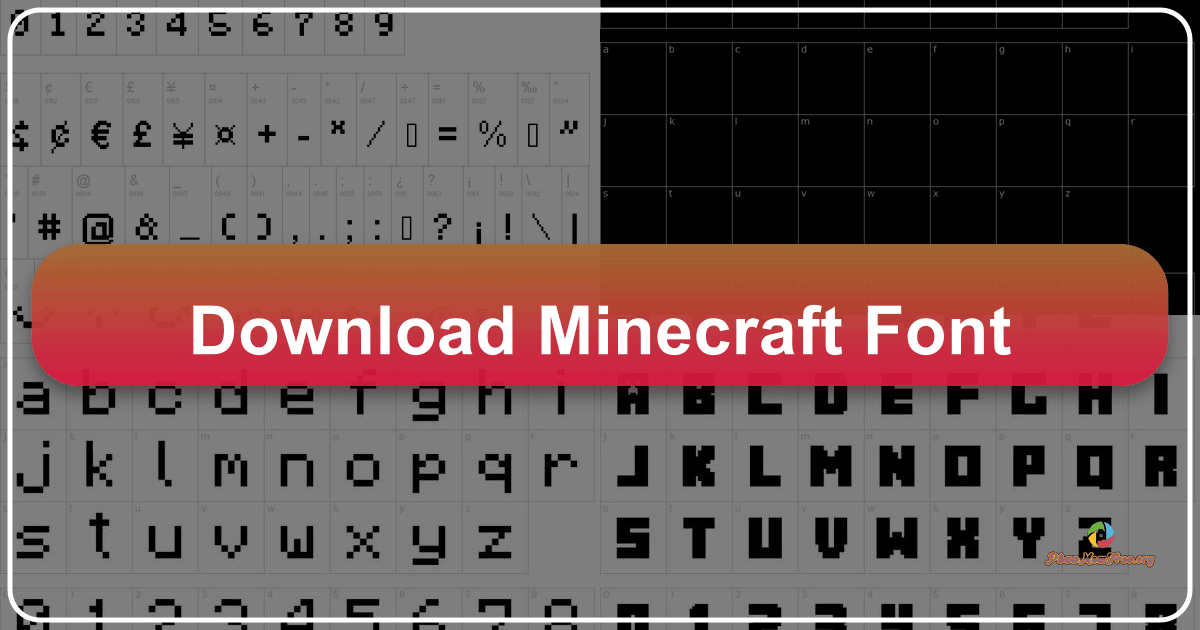
The iconic blocky aesthetic of Minecraft has captivated millions worldwide. Beyond the game itself, the distinctive pixel art style has permeated various aspects of popular culture, inspiring fan art, merchandise, and even custom fonts. The Minecraft Font, a freely available typeface, allows users to inject this beloved visual language into their digital creations, providing a unique way to personalize documents, images, and videos. This detailed exploration dives into the features, functionality, limitations, and overall user experience of the Minecraft Font, clarifying its strengths and weaknesses for both casual and serious users.
Understanding the Minecraft Font’s Appeal
The Minecraft Font’s primary appeal lies in its faithful recreation of the in-game text style. This instantly recognizable font perfectly captures the essence of the Minecraft experience, offering a nostalgic and visually engaging alternative to standard typefaces. The simple, geometric shapes of the characters are instantly identifiable as Minecraft, adding a distinctive charm to any project incorporating the font. This nostalgic element fosters a sense of connection with the game’s vast community and allows users to express their fandom in a tangible way.
For those creatively inclined, the font opens up a world of design possibilities. Instead of painstakingly recreating the Minecraft aesthetic in image editing software, users can effortlessly incorporate the font into their projects, significantly reducing the time and effort involved in creating Minecraft-themed designs. Whether it’s adding captions to videos, crafting unique logos, or simply styling documents, the Minecraft Font simplifies the process of infusing projects with the game’s signature style.
Furthermore, the font’s distinctive style might not be suitable for all applications. Its blocky nature can make it challenging to read in smaller sizes or for extended periods, potentially impacting readability in documents requiring detailed information or lengthy text passages. The design prioritizes visual appeal over optimal readability, making it more suitable for short text snippets, titles, or stylistic elements rather than extended blocks of writing. Therefore, careful consideration of the intended use case is crucial for maximizing the font’s effectiveness.
Technical Specifications and Limitations
The font’s primary limitation stems from its design aesthetic. The pixelated nature, while visually appealing in many contexts, may not be appropriate for all projects. Its bold, blocky appearance contrasts sharply with traditional serif or sans-serif fonts, making it unsuitable for applications demanding a more professional or refined look. Consider this visual contrast when selecting the font for different design tasks, ensuring that the style harmonizes with the overall project aesthetic.
However, some users have reported difficulties with compatibility and rendering issues, particularly with certain software or less common characters. These challenges highlight the importance of verifying compatibility before using the font in critical projects. A limited number of users also comment on the font’s readability limitations, suggesting it’s best suited for shorter text elements rather than extended passages. Overall, the community perception is generally favorable, with users appreciating its stylistic uniqueness despite acknowledging some functional limitations.